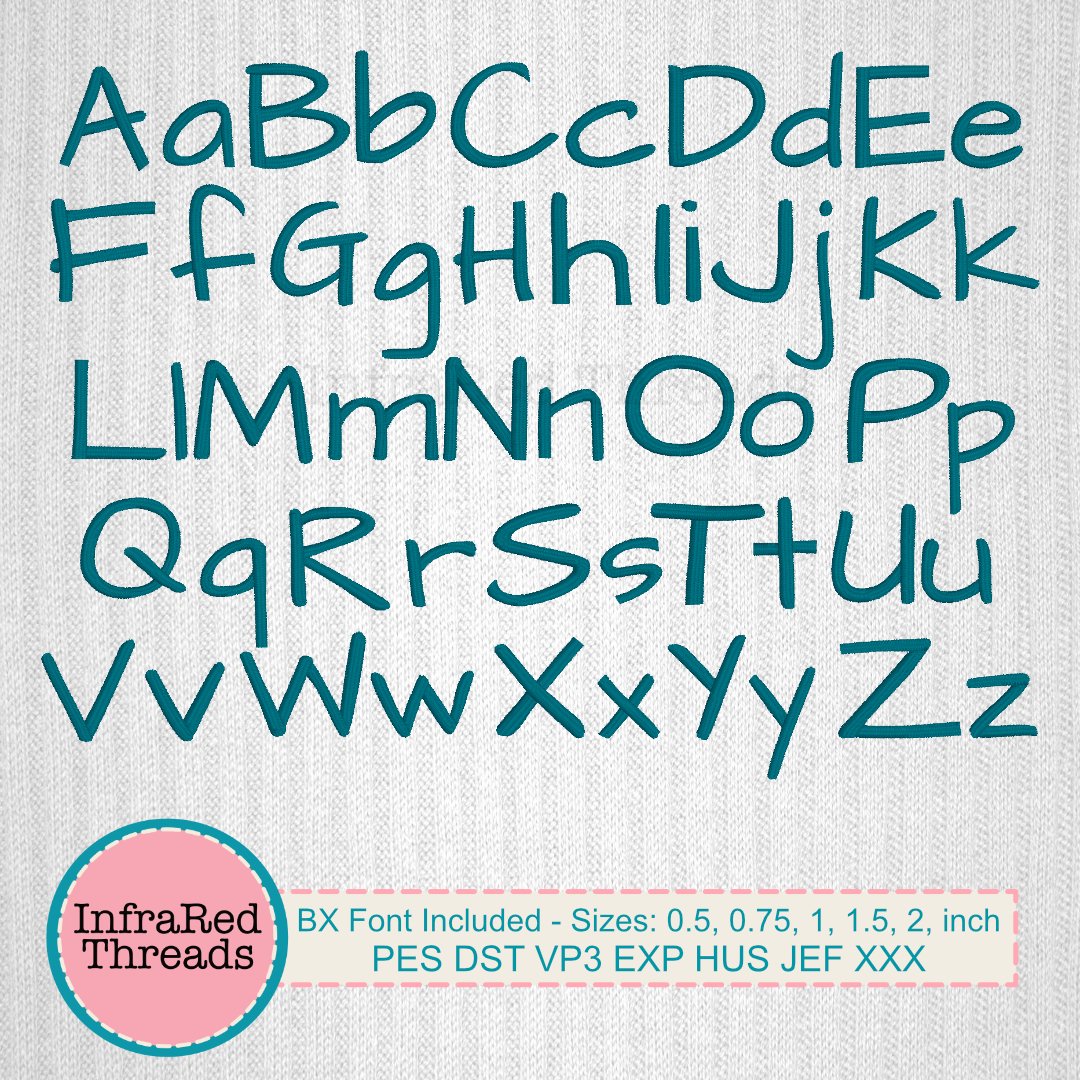
Archie Embroidery Font – Handwritten Satin Stitch Font in 5 Sizes
The Archie embroidery font offers a clean, casual handwritten style, ideal for projects needing a relaxed and modern look. Its satin stitch finish ensures crisp, high-quality results whether you’re adding names, labels, or quotes. Perfect for personalized gifts, back-to-school items, or everyday crafting.